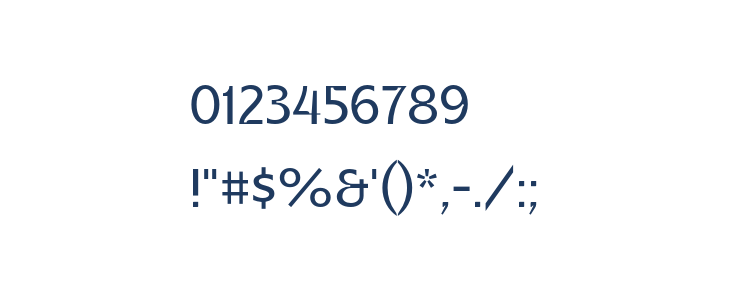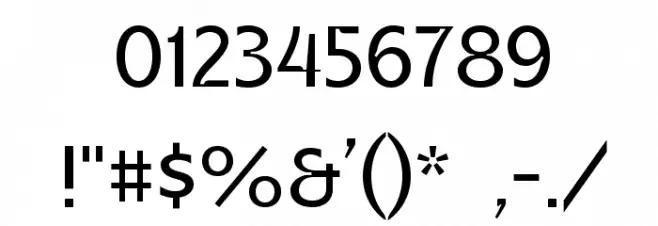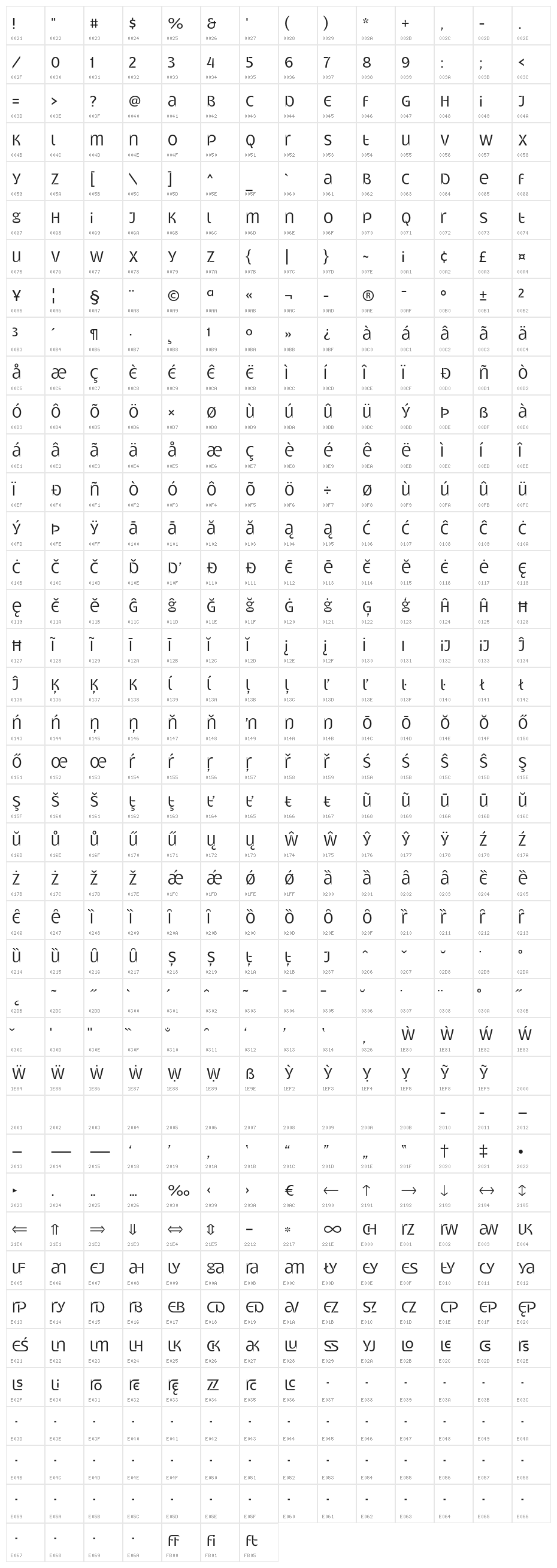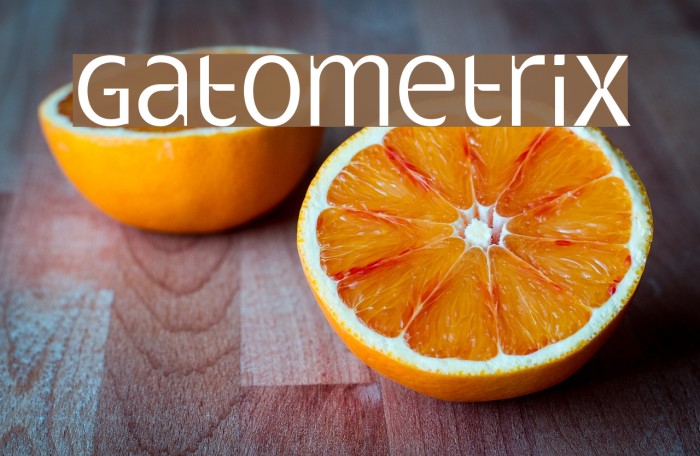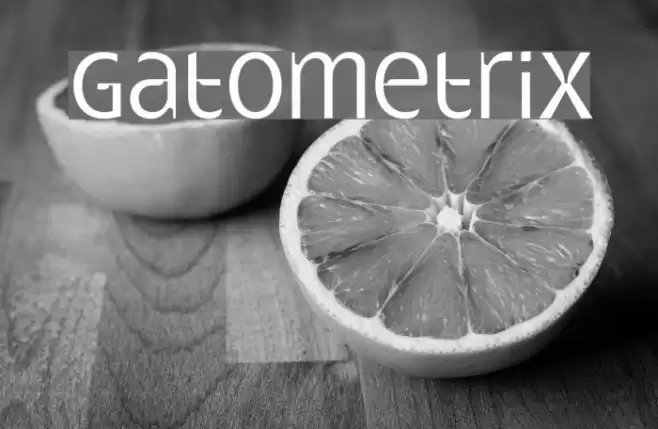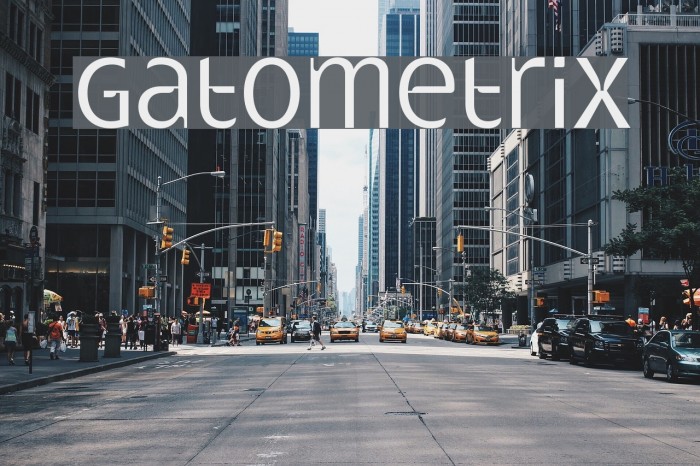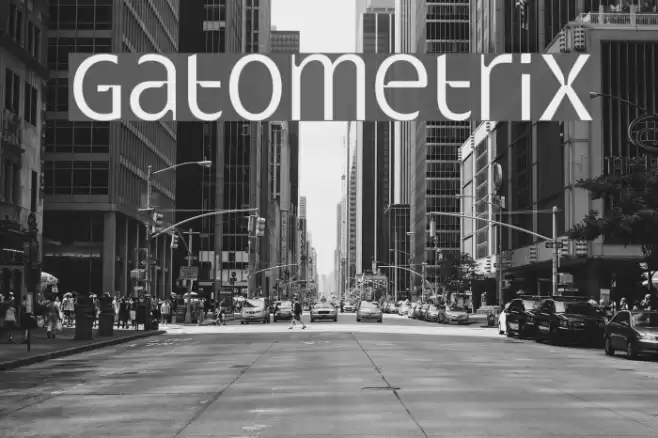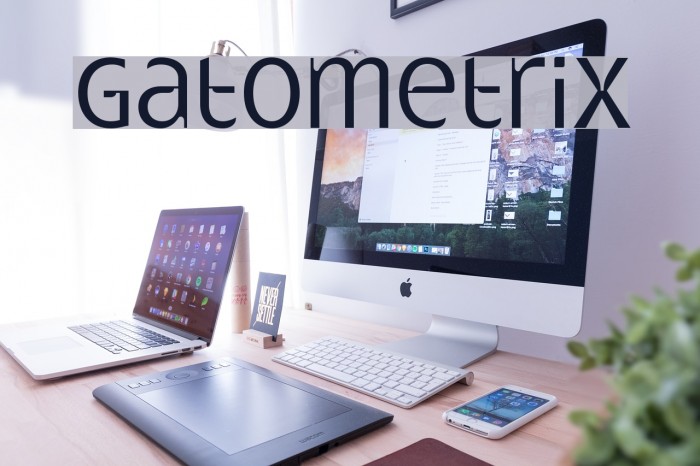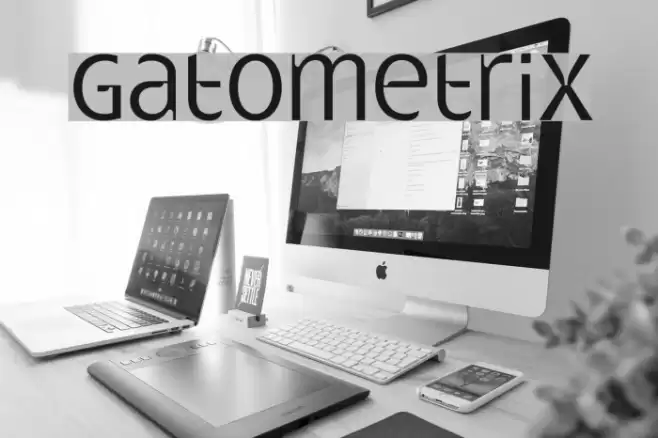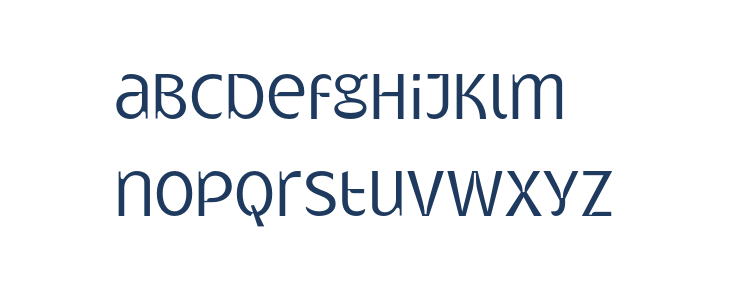
Gatometrix Font
Gatometrix Description
This font features a modern and geometric design with clean lines and a uniform structure. The characters are crafted with a consistent stroke width, giving it a sleek and contemporary appearance. The uppercase and lowercase letters maintain a harmonious balance, while the numerals and special characters integrate seamlessly into the overall design. The font's simplicity and clarity make it highly readable, suitable for various digital and print applications. Its geometric nature adds a touch of sophistication, making it ideal for projects that require a modern and professional look.